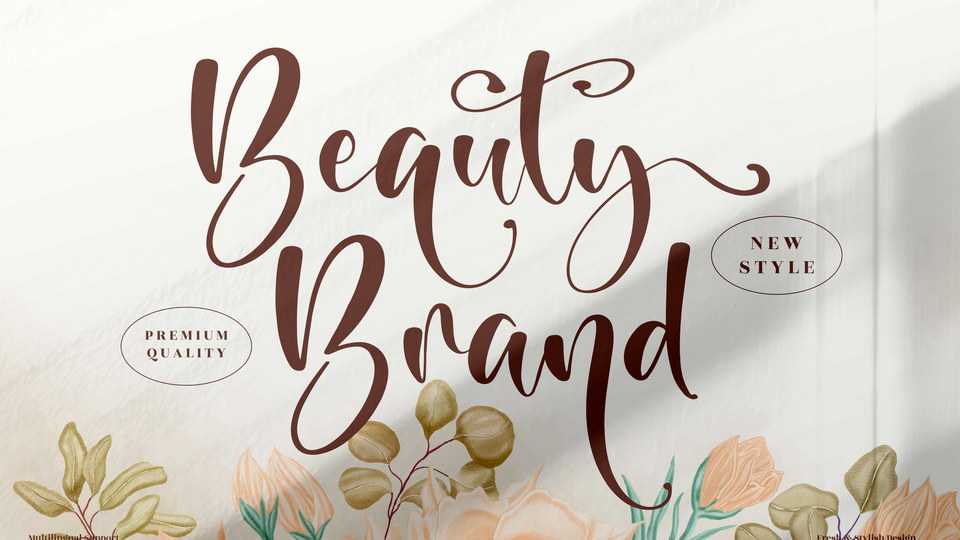
Download Beauty Brand font, a lovely and timeless handwritten typeface. Beauty Brand is the best choice for creating eye catching logos, branding and quotes.
Designer: Perspectype Studio